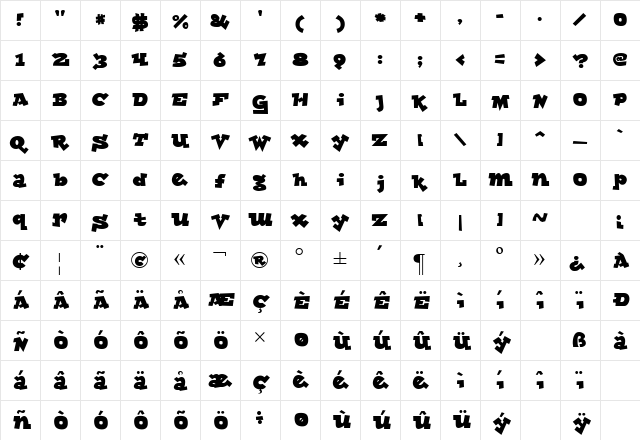
Lockergnome Regular
Design Context for Lockergnome
Lockergnome is a composed and adaptable typeface that performs quietly and consistently across a wide range of design contexts.